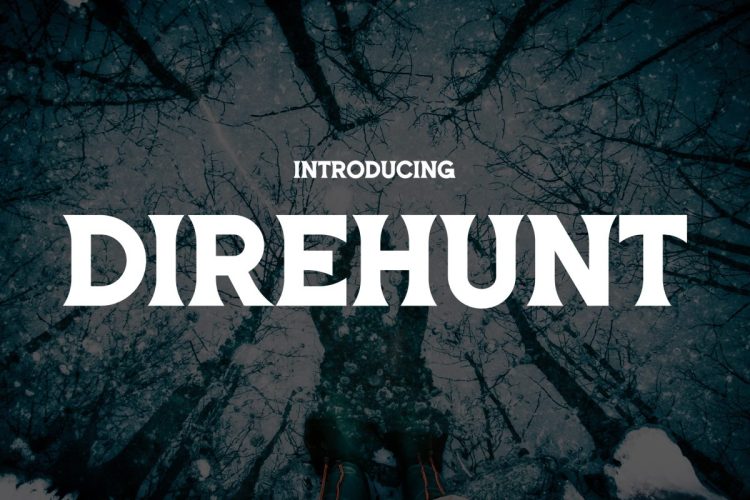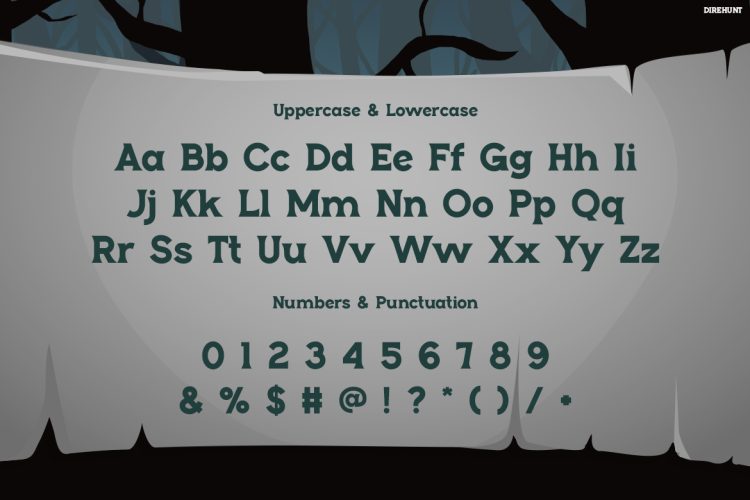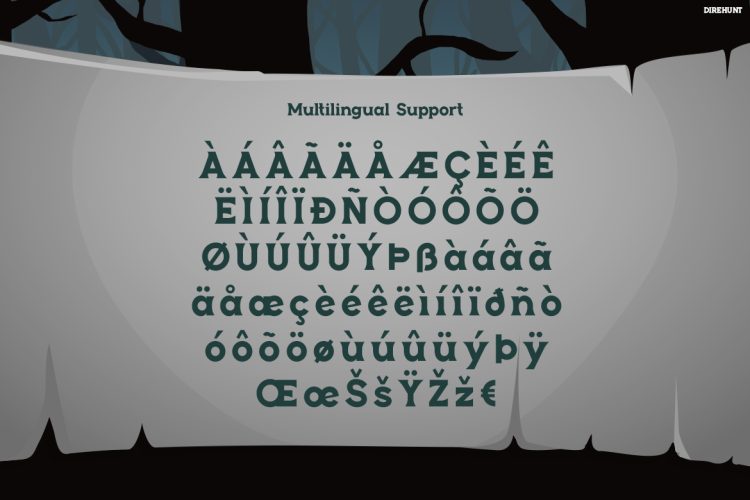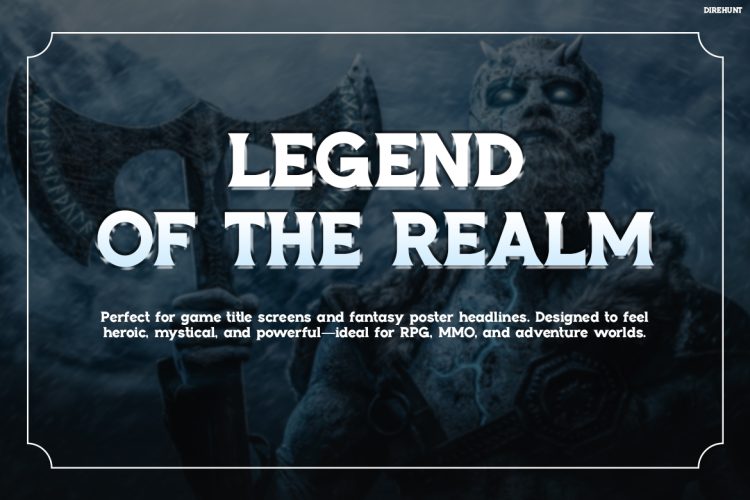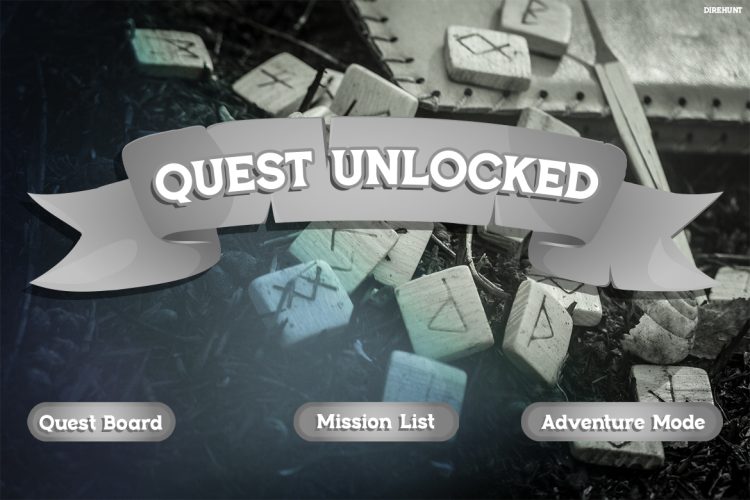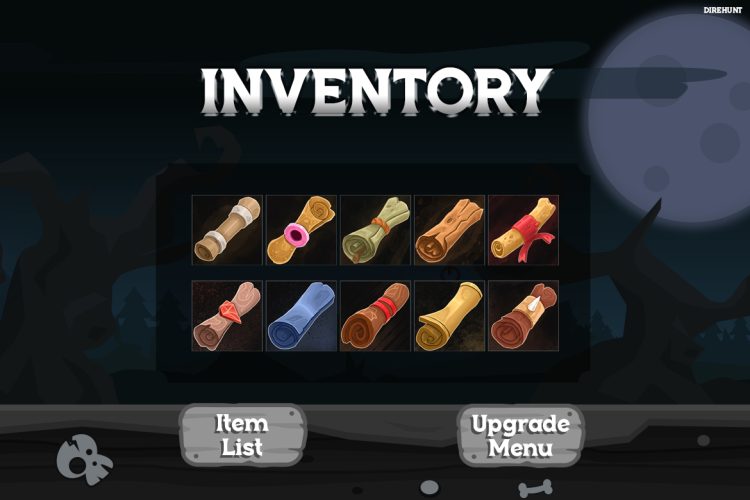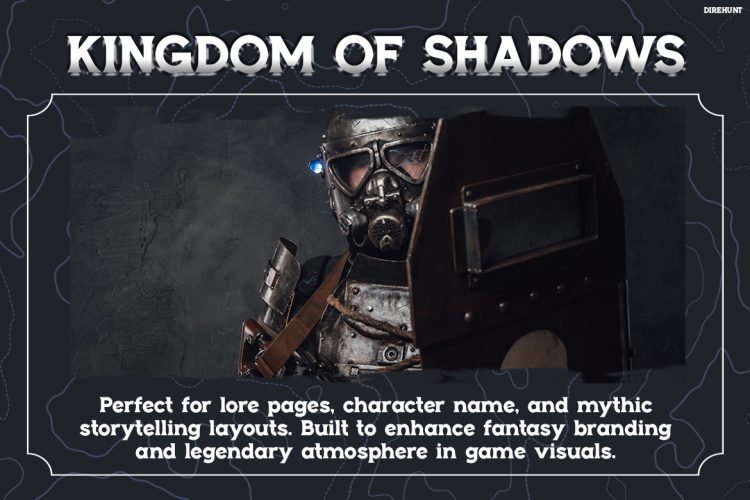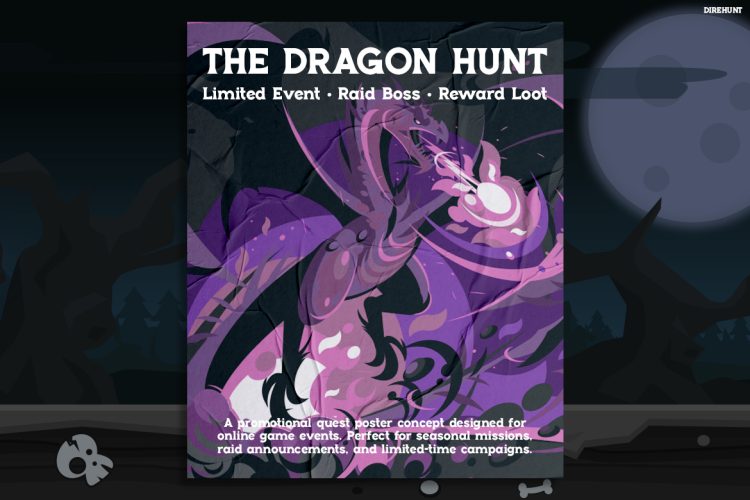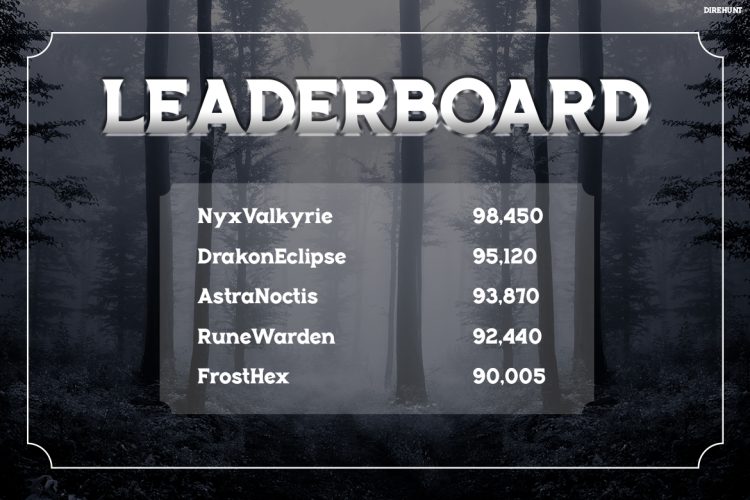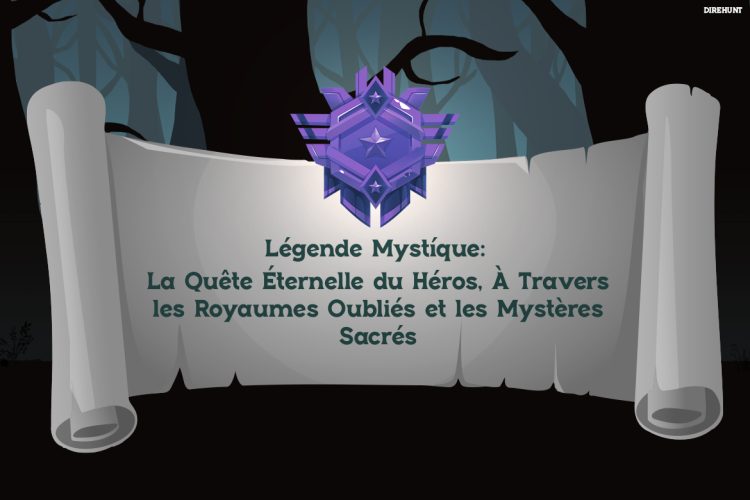
DIREHUNT โ Dark Fantasy Gaming Font with Epic UI Power
Gaming Font DIREHUNT delivers a bold, atmospheric typeface crafted for immersive fantasy worlds and high-impact gaming visuals. Moreover, its sharp serif edges and mystical curves create a dramatic medieval tone that feels both powerful and refined. In addition, the strong contrast enhances readability, so your titles and UI remain clear while still looking cinematic. As a result, this font not only captures attention instantly but also strengthens storytelling through its striking visual identity. Furthermore, with multilingual support across 67 languages, it ensures your designs reach a global audience effortlessly.
DIREHUNT is a versatile gaming font designed for fantasy-themed projects and dynamic interfaces. For example, it works perfectly on title screens, quest panels, inventory systems, and leaderboards. At the same time, its structured letterforms maintain clarity across different sizes and layouts. Consequently, designers can achieve both aesthetic impact and functional usability. In other words, this font balances beauty and performance, making every design feel immersive and professional.
Therefore, DIREHUNT is ideal for game developers, UI/UX designers, streamers, and fantasy creators. Additionally, it suits authors, branding specialists, and content creators who need a strong medieval or dark fantasy vibe. Whether you are designing logos, posters, YouTube thumbnails, or in-game assets, this font adapts seamlessly. Ultimately, it helps bring epic concepts to life with consistency and style.